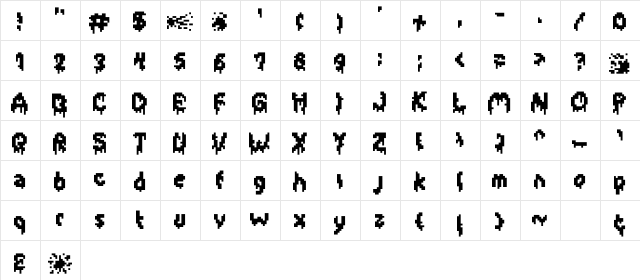
HydratingLip Medium
Design Context for HydratingLip Typeface
HydratingLip is a composed and adaptable typeface that performs quietly and consistently across a wide range of design contexts.